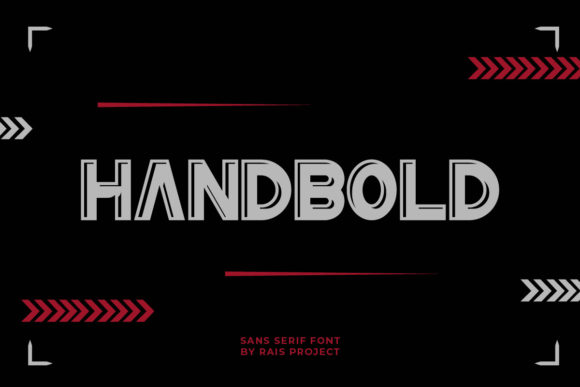
Introducing the HandBold Font: the ultimate weapon for sports enthusiasts! This stunning display font will ignite your designs, empowering you to create captivating and energetic masterpieces.
HandBold Font is not just another font; it's a gateway to a world of adrenaline and excitement. Its bold and striking lines will ignite your creativity, fueling your passion for sports. Whether you're designing a logo for your favorite team or crafting posters for adrenaline-pumping events, HandBold Font will amplify your message, making it louder, clearer, and impossible to ignore.
Step onto the field of design with confidence, knowing that HandBold Font has your back. Its versatility is unmatched, adapting seamlessly to any challenge you throw its way. From exhilarating sports logos to dynamic posters, HandBold Font will elevate your designs to new heights.
Unlock the power of HandBold Font today and unleash your inner champion. Let its bold strokes inspire your creativity and ignite the passion within you. With HandBold Font, victory is not just an option – it's your destiny!